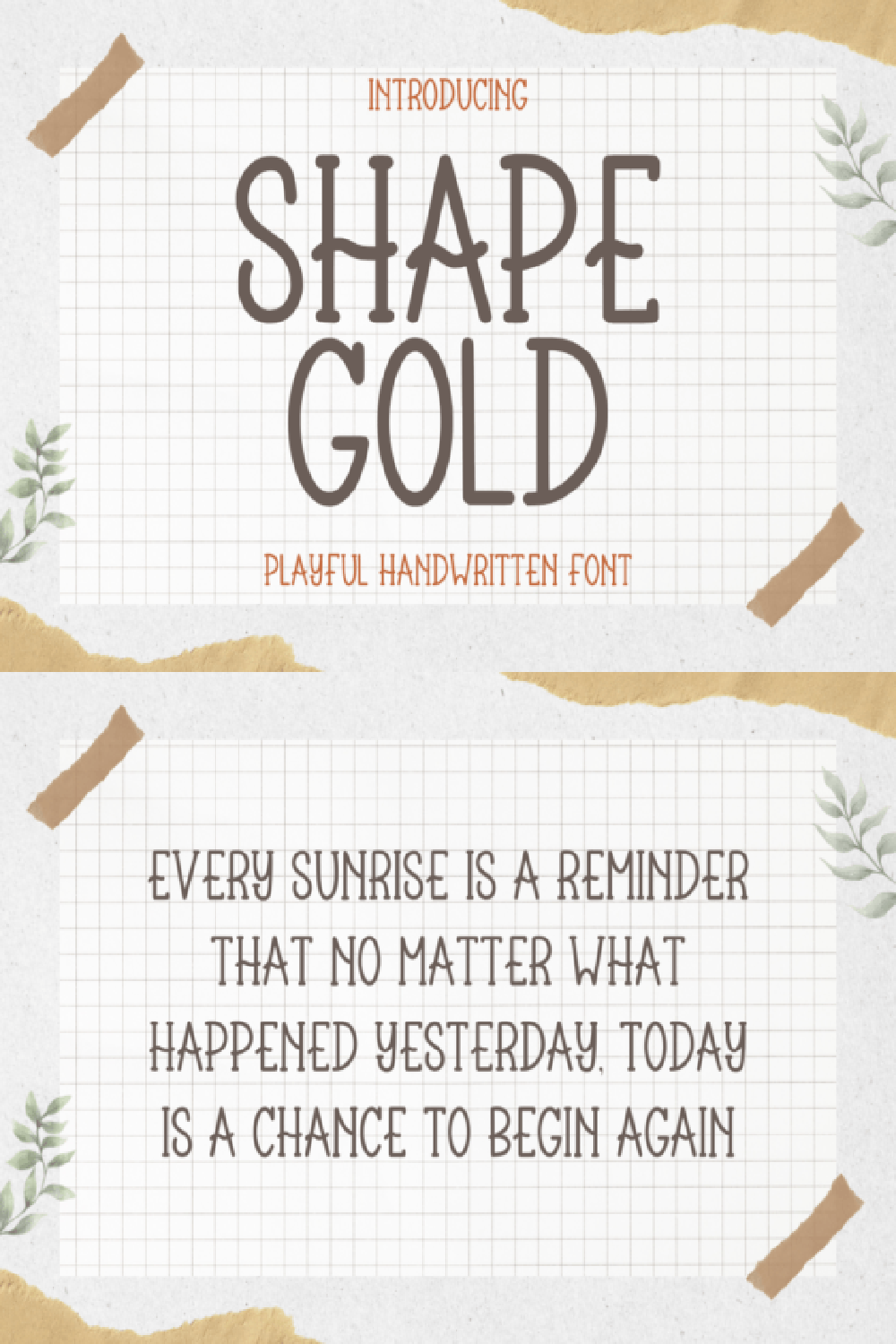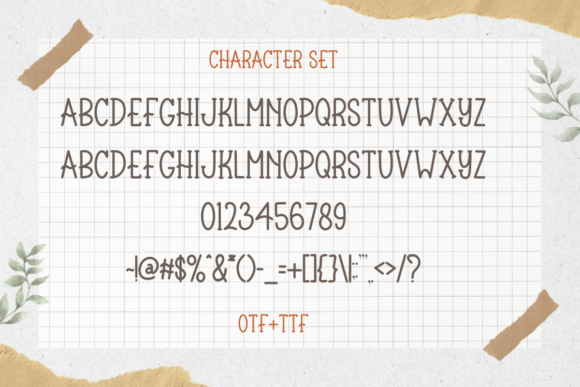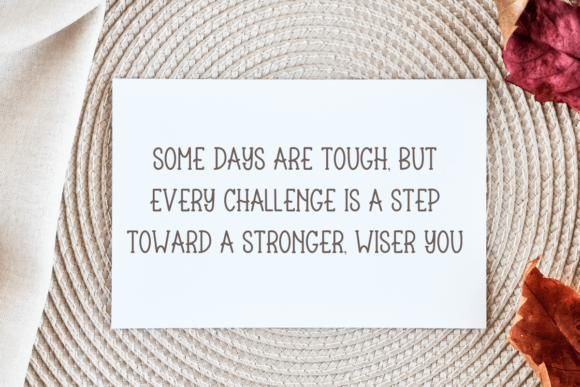
Shape Gold Font: Cute & Playful DIY Craft Font for Cricut
About the Shape Gold Font
Explore the possibilities with Shape Gold Font, a font that offers both beauty and functionality. Shape Gold is a fun and whimsical font that’s perfect for crafts, planners, KDP, stickers, greeting cards, and more. With its cute and friendly style, it works great for Cricut, sublimation, and creative DIY projects. Ideal for crafters, designers, and makers!
Shape Gold Font Usage Examples